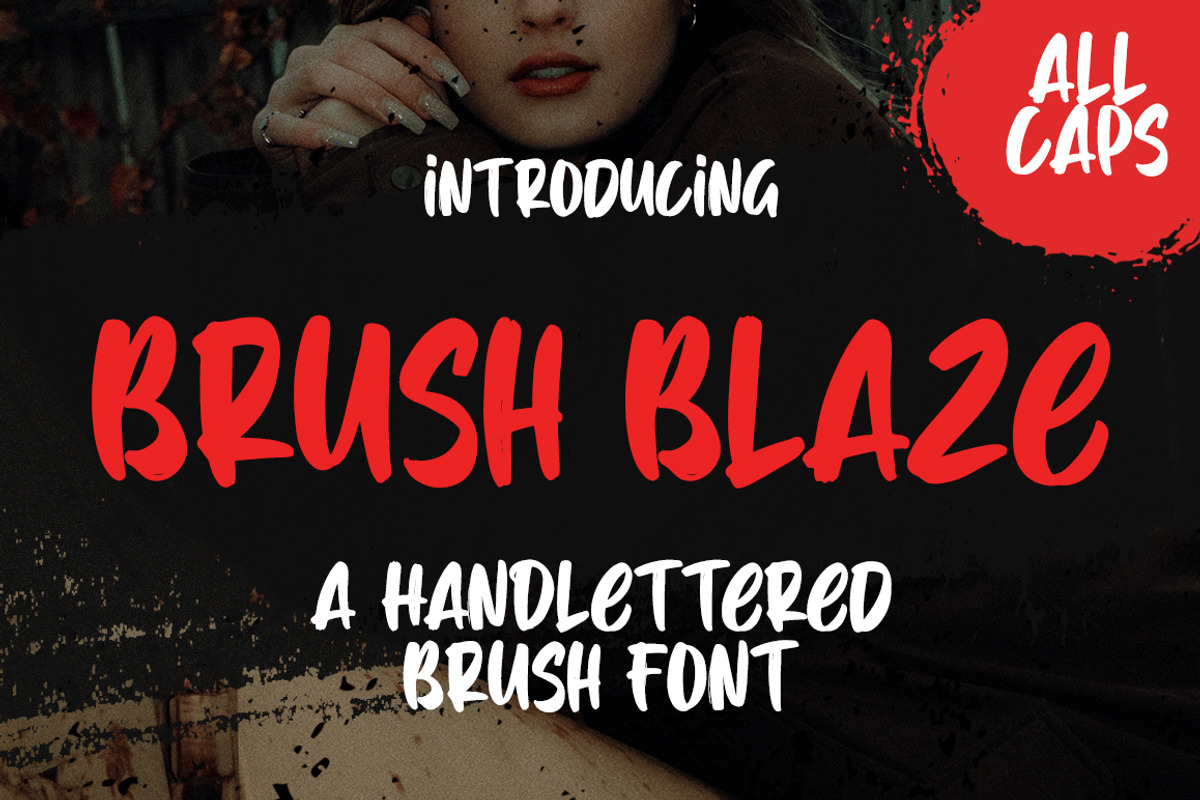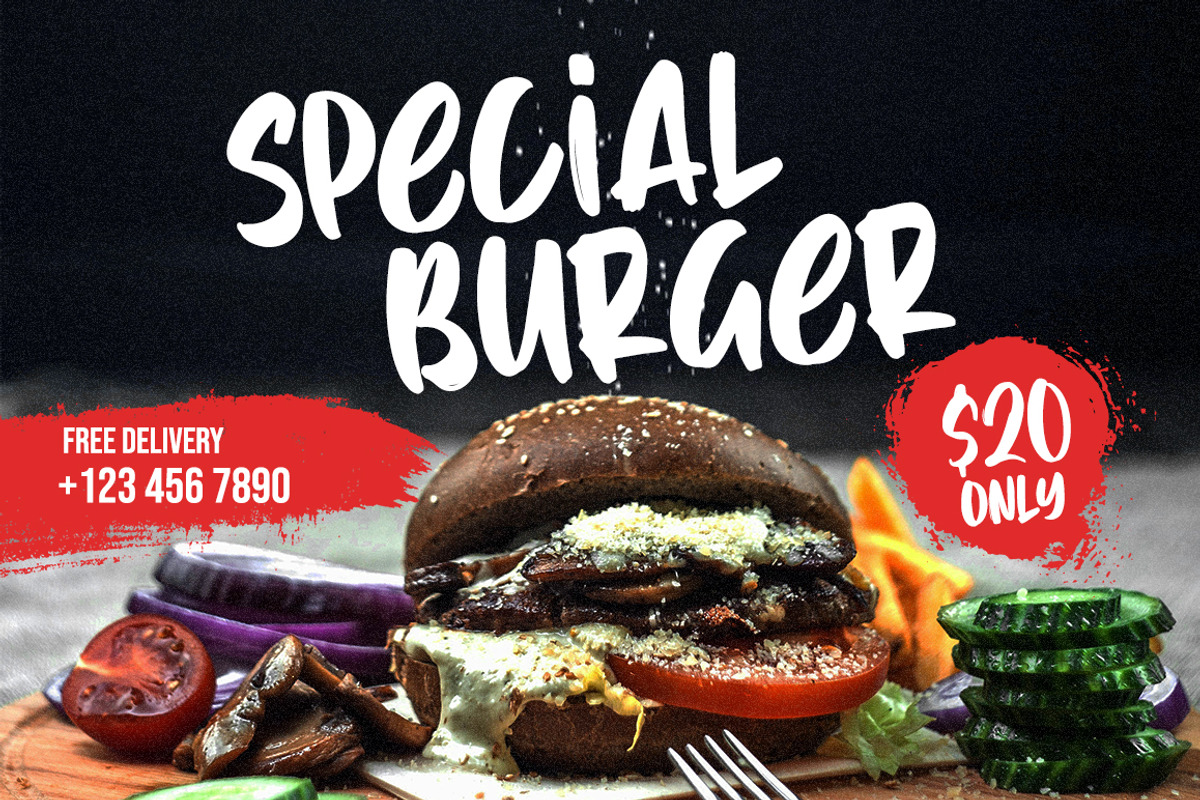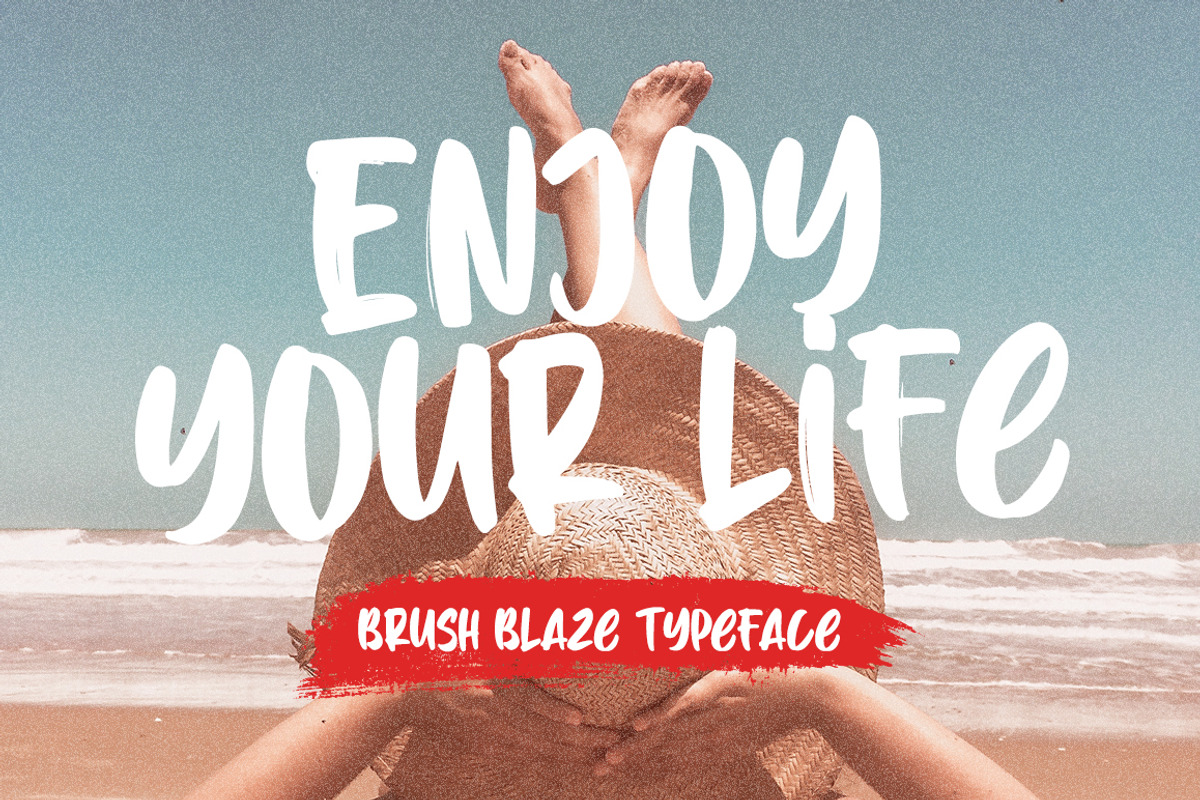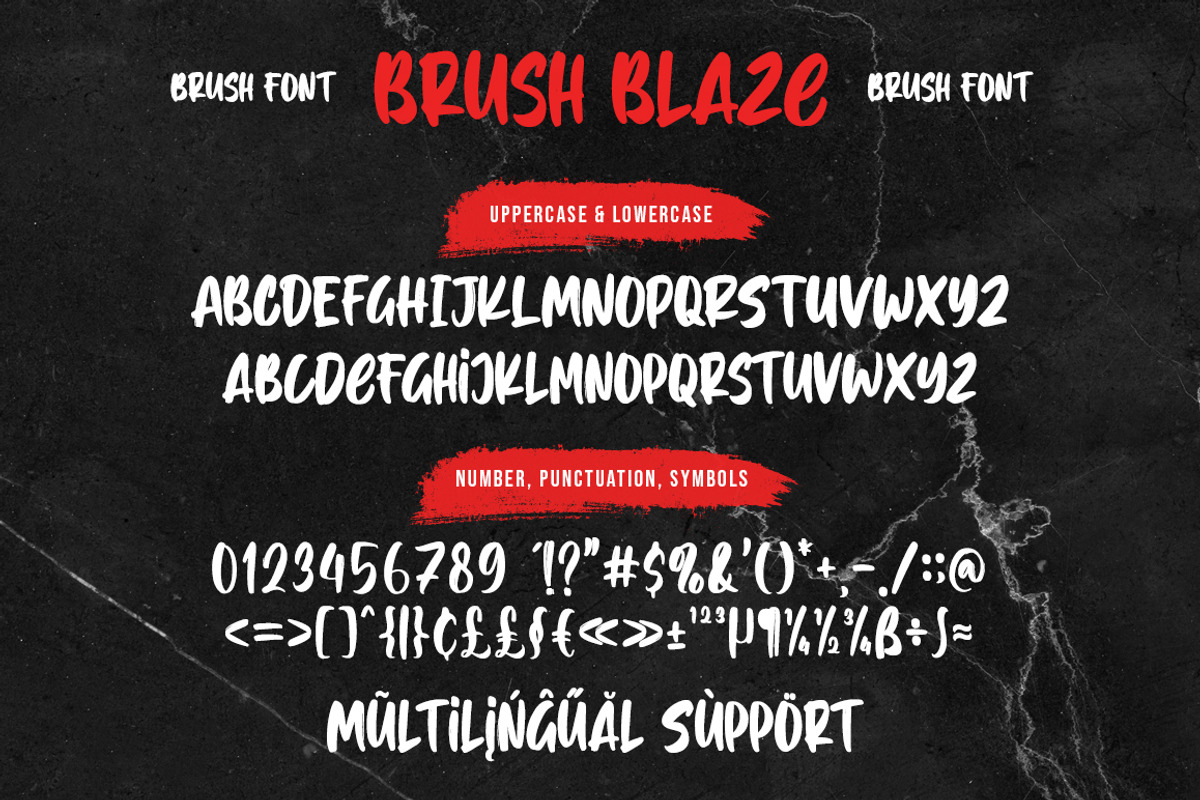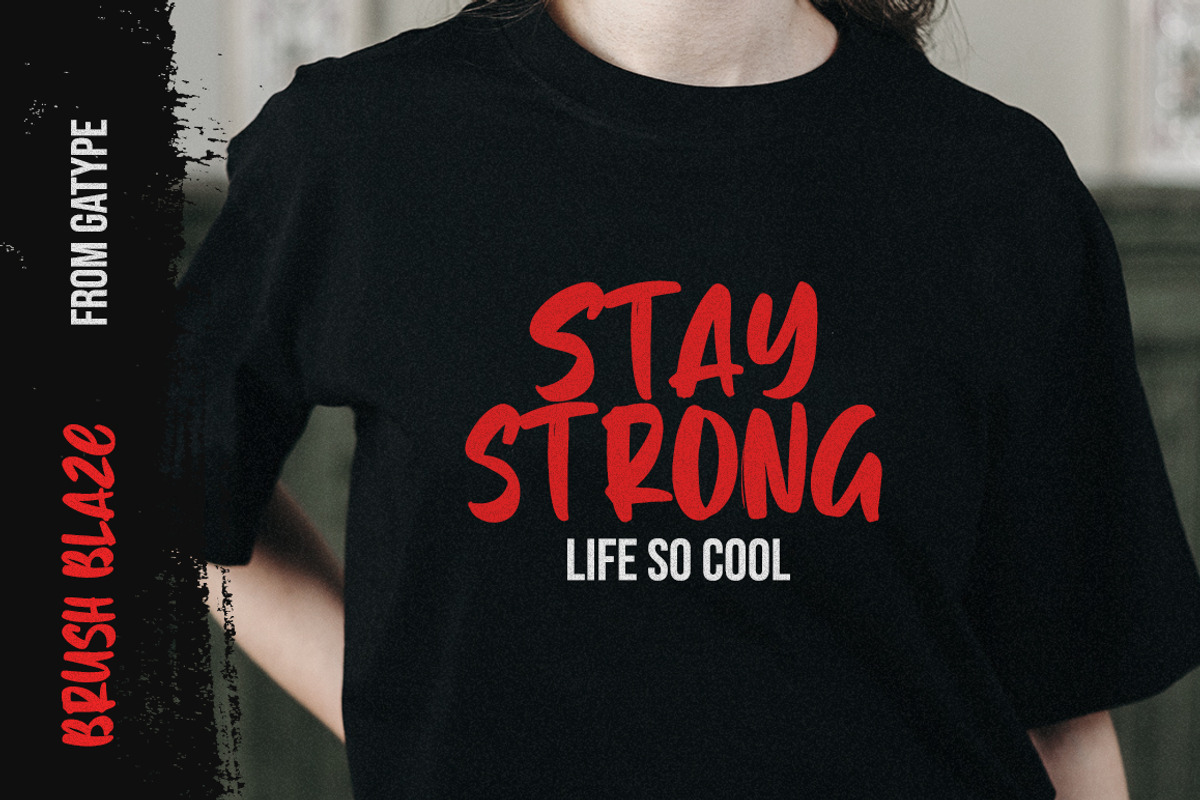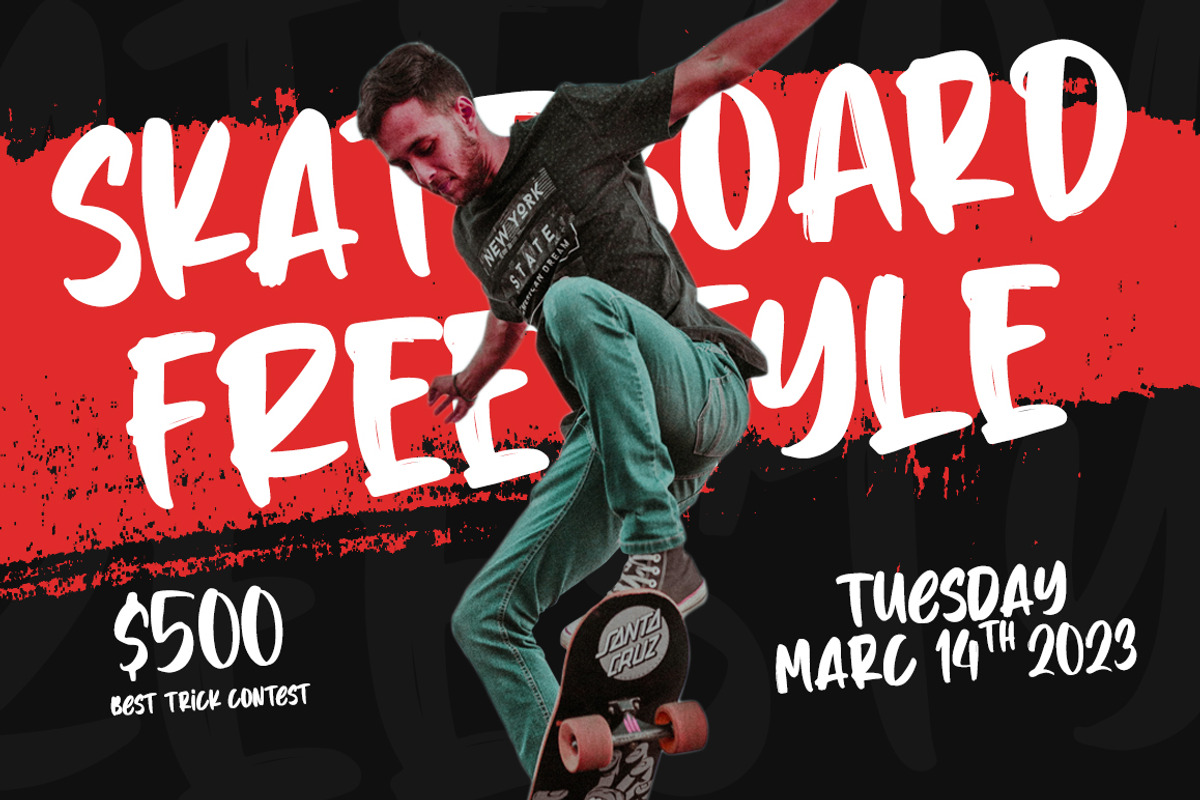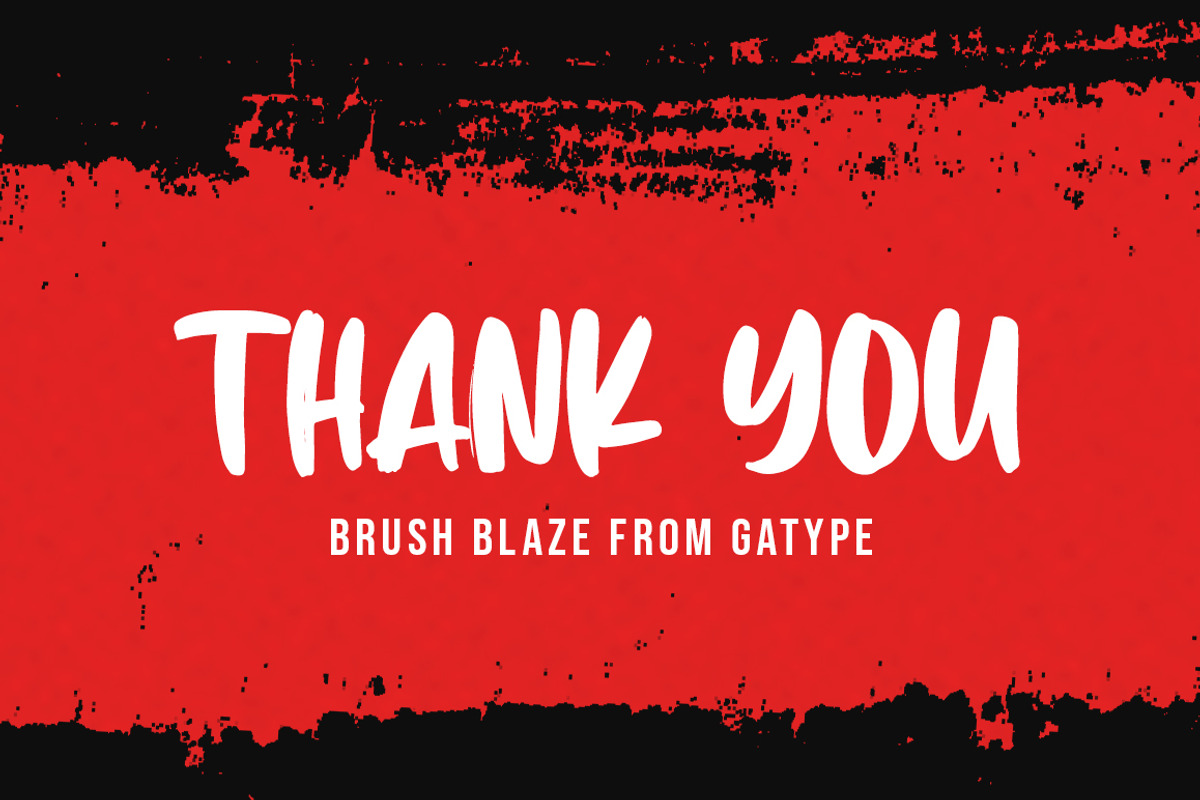
Brush Blaze
Brush Blaze is a font that was scratched with a brush pen, to get a natural texture, this font will show the characteristics of the hand. This font is perfect for various places such as clothing, posters, title books, stationery designs, quotes, branding, logos, invitations, greeting cards, t-shirts, packaging designs and more.